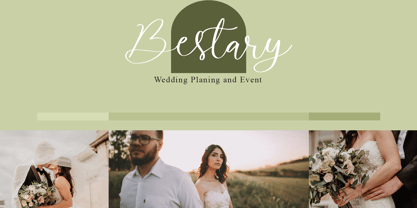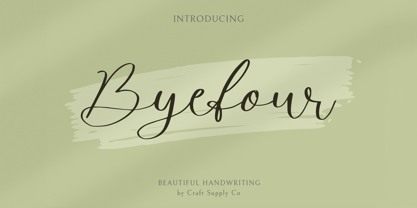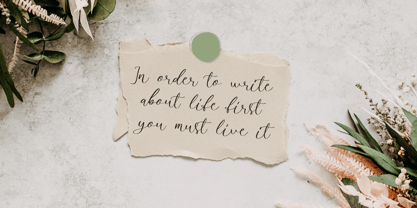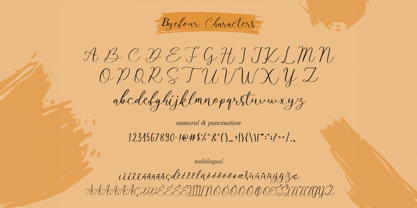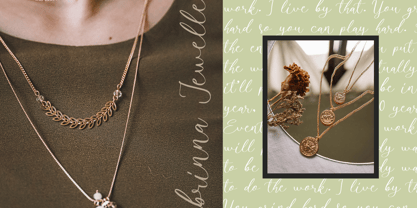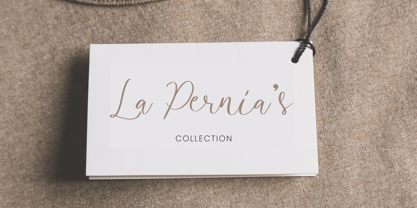
Byefour
by Craft Supply Co
The Byefour Font Family was designed by Trio Nazzar Saputra, Wahyu Hadi Yuana and published by Craft Supply Co. Byefour contains 2 styles and family package options. More about this family
🌷 Introducing New Font : Byefour – Beautiful Script 🌷
Byefour – Beautiful Script is a beautiful script font with handwriting style. Byefour – Beautiful Script will work perfectly for fashion, e-commerce brands, trend blogs, wedding boutiques or any business that wants to appear upscale and chic.
Designers: Trio Nazzar Saputra, Wahyu Hadi Yuana
Foundry: Craft Supply Co